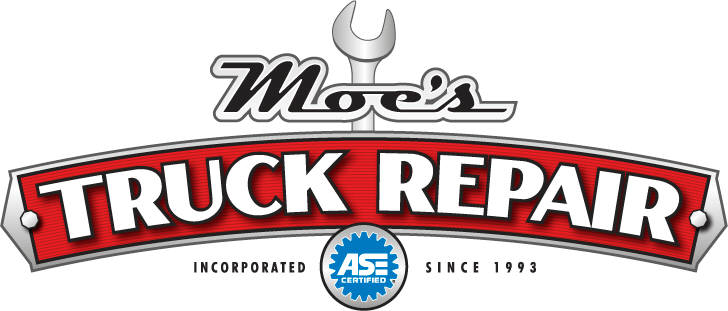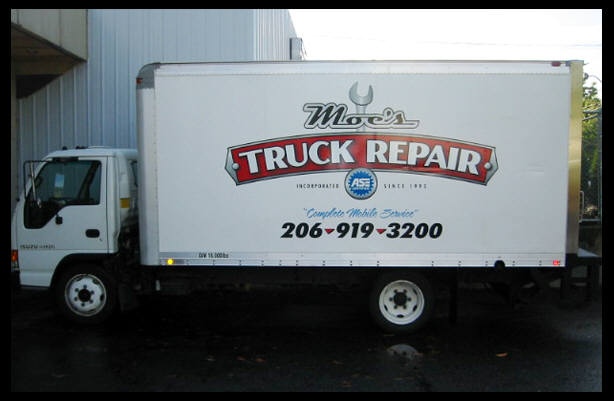
This logo was designed for a mobile truck repair company.
It carries a nostalgic look while being surprisingly modern.
The Moe's name and truck repair are custom lettered.
The sub copy is Futura.